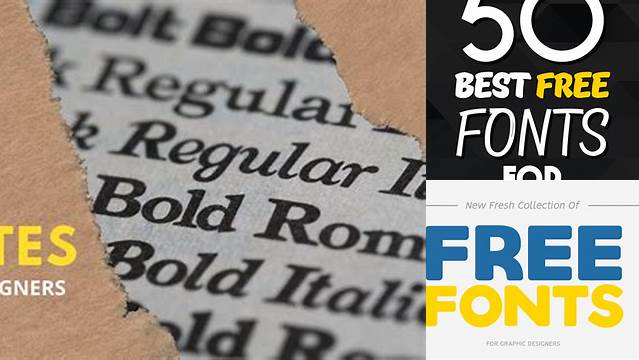
Best Free Font Websites For Graphic Designers
Hey guys! If you're a graphic designer, you know how crucial it is to have access to a wide variety of fonts. Finding the perfect font can make or break a design, and sometimes, those premium fonts can break the bank too! So, let's dive into the best free font websites for graphic designers that offer high-quality typefaces without costing you a dime. We're going to explore a bunch of resources where you can snag some awesome fonts to elevate your projects. Ready? Let's get started!
2. Google Fonts: A Designer's First Stop
When it comes to free fonts, Google Fonts is often the first place designers turn to, and for good reason! It’s a massive library boasting hundreds of free, open-source fonts that you can use in your personal and commercial projects. The best part? It's super easy to use. You can browse fonts directly on the Google Fonts website, filter by categories like serif, sans-serif, display, and handwriting, and even test out how the font looks with your own text. This makes it incredibly convenient to find the perfect typeface for your project. Plus, Google Fonts integrates seamlessly with web design projects. You can easily embed fonts into your website with just a few lines of code, ensuring your site looks exactly as you envisioned. The fonts are also optimized for web use, meaning they load quickly and look crisp on any device. Some standout fonts from Google Fonts include Open Sans, Roboto, Lato, and Montserrat. These fonts are versatile, readable, and widely used in various design projects. Whether you’re designing a website, a logo, or print materials, you're likely to find a free font that fits your needs. Google Fonts is more than just a font library; it's a valuable resource that supports designers in creating beautiful and accessible designs. And the fact that it's completely free? That’s just the cherry on top! So, if you're looking to expand your font collection without spending a dime, Google Fonts should definitely be your first stop. Trust me, you won’t be disappointed by the sheer variety and quality available.
3. Font Squirrel: Commercial-Use Free Fonts
Next up on our list of best free font websites is Font Squirrel, a fantastic resource for designers looking for free fonts that are also cleared for commercial use. This means you can use the fonts you find here in your client projects, marketing materials, and any other commercial endeavors without worrying about licensing issues. Font Squirrel is known for its high standards and careful curation. They ensure that all the fonts available on their site are not only free but also of excellent quality. This means you’re getting professionally designed typefaces that can truly elevate your work. The website itself is user-friendly, making it easy to browse and discover new fonts. You can filter by classifications like serif, sans-serif, script, and more, or use the handy “Font Identifier” tool to find a font similar to one you’ve seen elsewhere. One of the coolest features of Font Squirrel is their @font-face kit generator. This tool helps you easily embed fonts into your website, ensuring they display correctly across different browsers. This is a huge time-saver for web designers! Font Squirrel also offers a blog where you can find articles about typography, design trends, and font recommendations. It’s a great way to stay updated and inspired. If you're serious about your design work and need free fonts that can handle commercial projects, Font Squirrel is a must-visit. It’s a treasure trove of high-quality, legally sound fonts that will help you create stunning designs without breaking the bank. So, go ahead and explore – you might just find your new favorite typeface!
4. DaFont: A Huge Variety of Free Fonts
DaFont is another powerhouse in the world of free font websites, known for its massive collection of fonts. If you’re looking for variety, DaFont is definitely the place to be. This site hosts thousands of fonts, ranging from classic serifs and sans-serifs to quirky display fonts and handwritten scripts. One of the great things about DaFont is its easy-to-navigate interface. Fonts are organized into categories like Fancy, Foreign look, Techno, Gothic, Basic, Script, and more. This makes it simple to find fonts that match the style you’re going for. However, it’s super important to note that while many fonts on DaFont are free for personal use, not all of them are free for commercial use. You need to check the license information for each font individually before using it in a project that will generate revenue. The license information is usually displayed right on the font’s download page. Despite the need for careful license checking, DaFont is an invaluable resource for designers. It’s a fantastic place to discover unique and creative fonts that you might not find anywhere else. Whether you're working on a personal project or just experimenting with different styles, DaFont offers a wealth of options. It’s also a great source of inspiration. Browsing through the categories can spark new ideas and help you think outside the box. If you're willing to take the time to verify the licenses, DaFont can be a goldmine of free fonts for your design arsenal. So, dive in, explore, and find those hidden gems that will make your designs stand out! Just remember to double-check those licenses, guys!
5. 1001 Free Fonts: A Font Library with a Long History
1001 Free Fonts is a veteran in the world of free font websites, having been around for quite some time. It's built a reputation as a reliable source for a wide range of typefaces. Like DaFont, 1001 Free Fonts boasts a vast collection, offering everything from traditional fonts to more decorative and specialized options. The site’s longevity means it has accumulated a significant archive of fonts, making it a great place to discover both popular and lesser-known typefaces. One of the strengths of 1001 Free Fonts is its straightforward interface. Fonts are categorized into various styles, such as serif, sans-serif, script, display, and more, making it easy to narrow down your search. You can also preview fonts by typing in your own text, which helps you see how a font will look in your specific design context. As with many free font sites, it's crucial to pay attention to the licensing terms. While many fonts are free for personal use, commercial use may require a license or permission from the font designer. Always check the details provided on the font's download page to ensure you're using the font legally. 1001 Free Fonts is a valuable resource for designers looking to expand their font library. Its extensive collection and user-friendly interface make it easy to find fonts for a variety of projects. Whether you're working on a website, a poster, or a branding project, you're likely to find something that fits your needs. The site also offers a selection of free graphics and other design resources, making it a one-stop-shop for creative professionals. So, if you're on the hunt for free fonts, give 1001 Free Fonts a look. Its long history and vast selection make it a worthy addition to your list of resources. Just remember to always check those licenses before you use a font commercially!
6. Creative Market Free Goods: High-Quality Fonts Weekly
Creative Market is a popular online marketplace for design assets, and they offer a fantastic section called